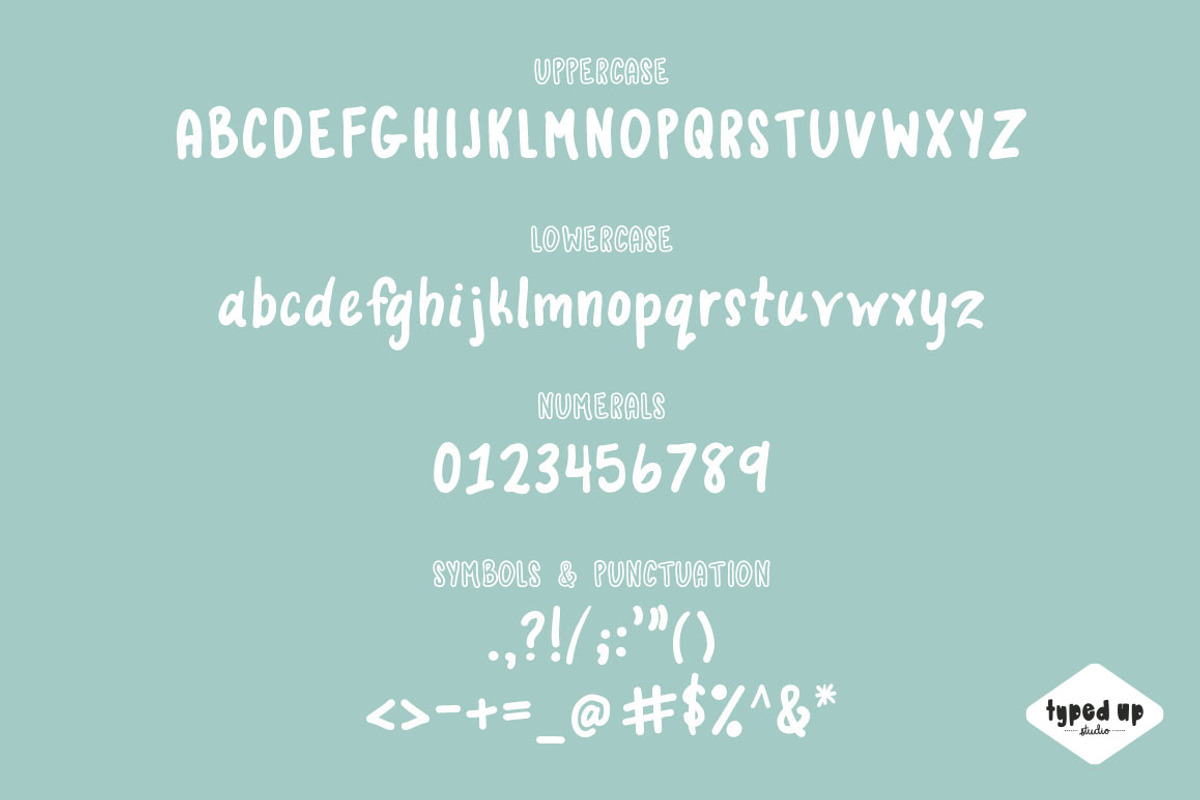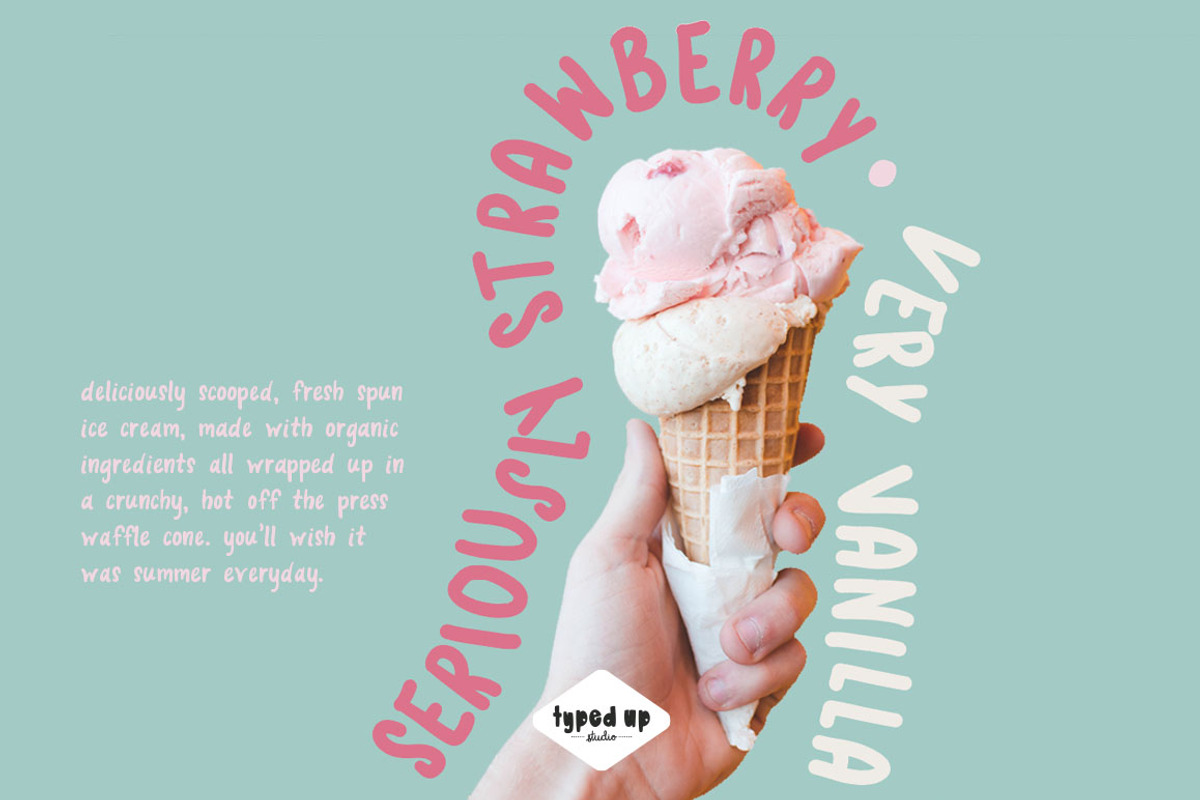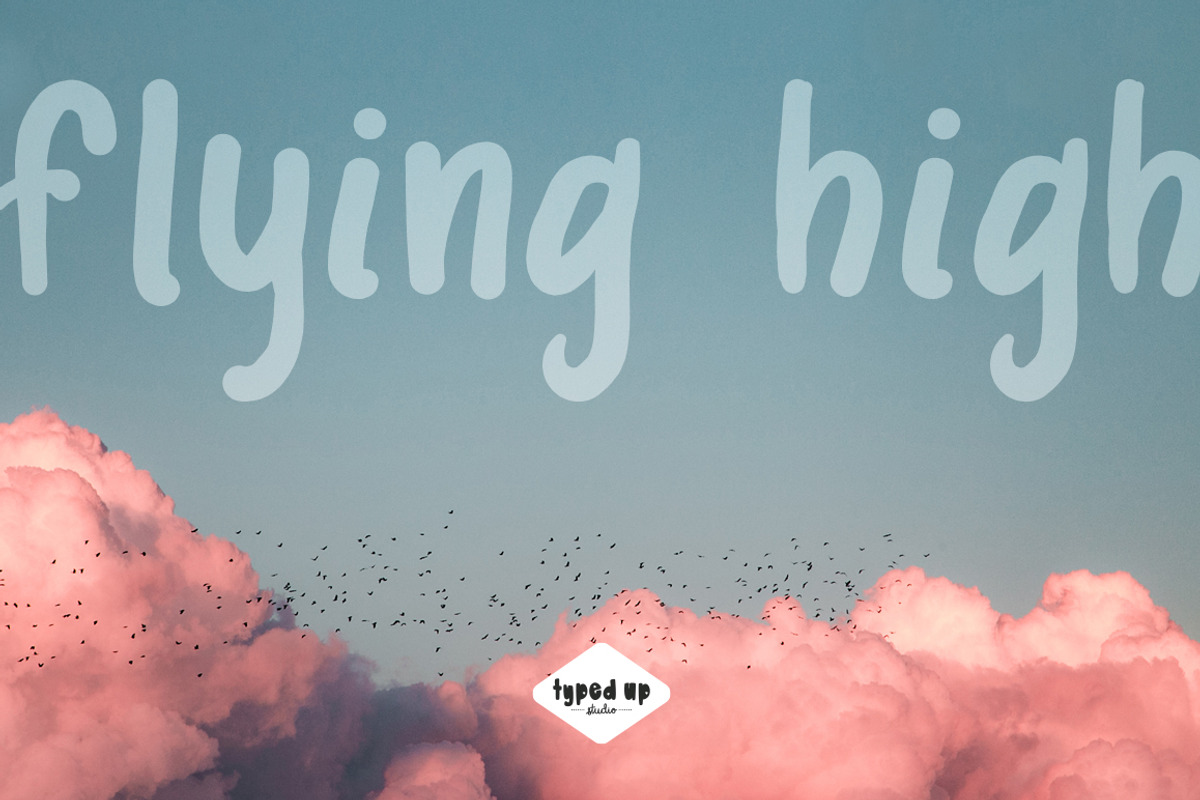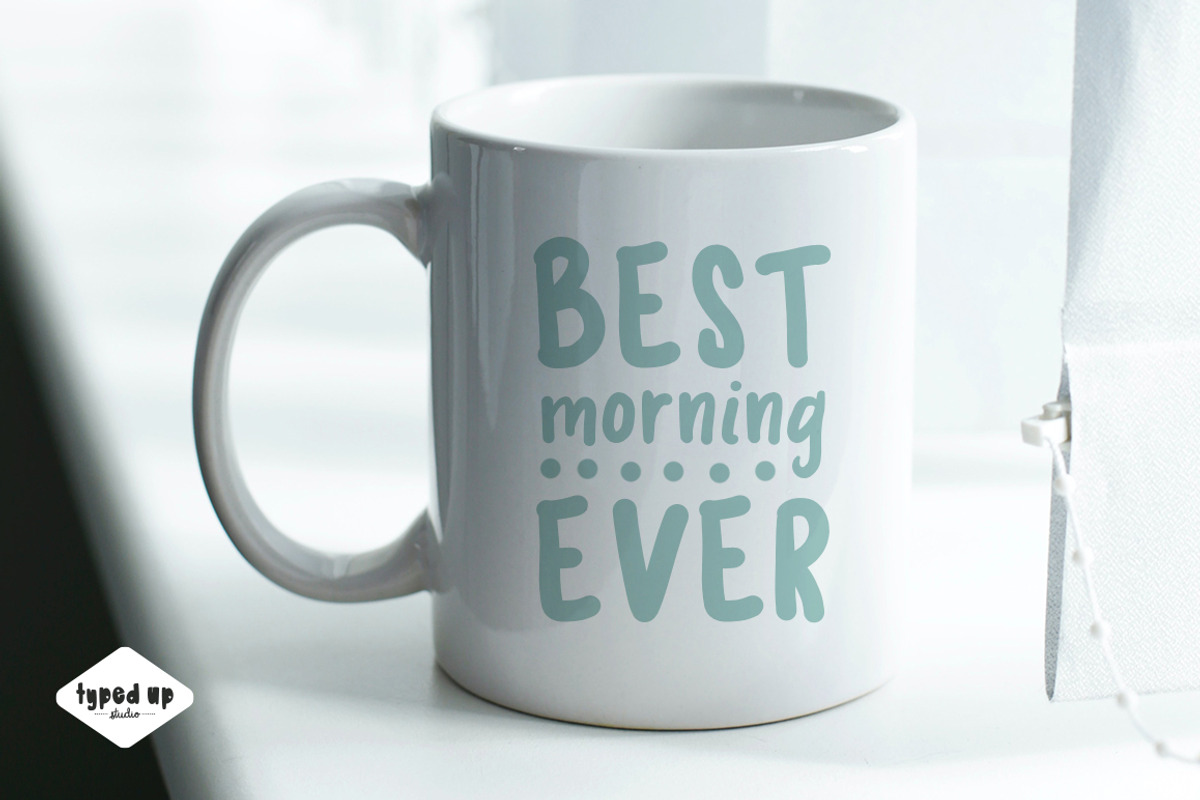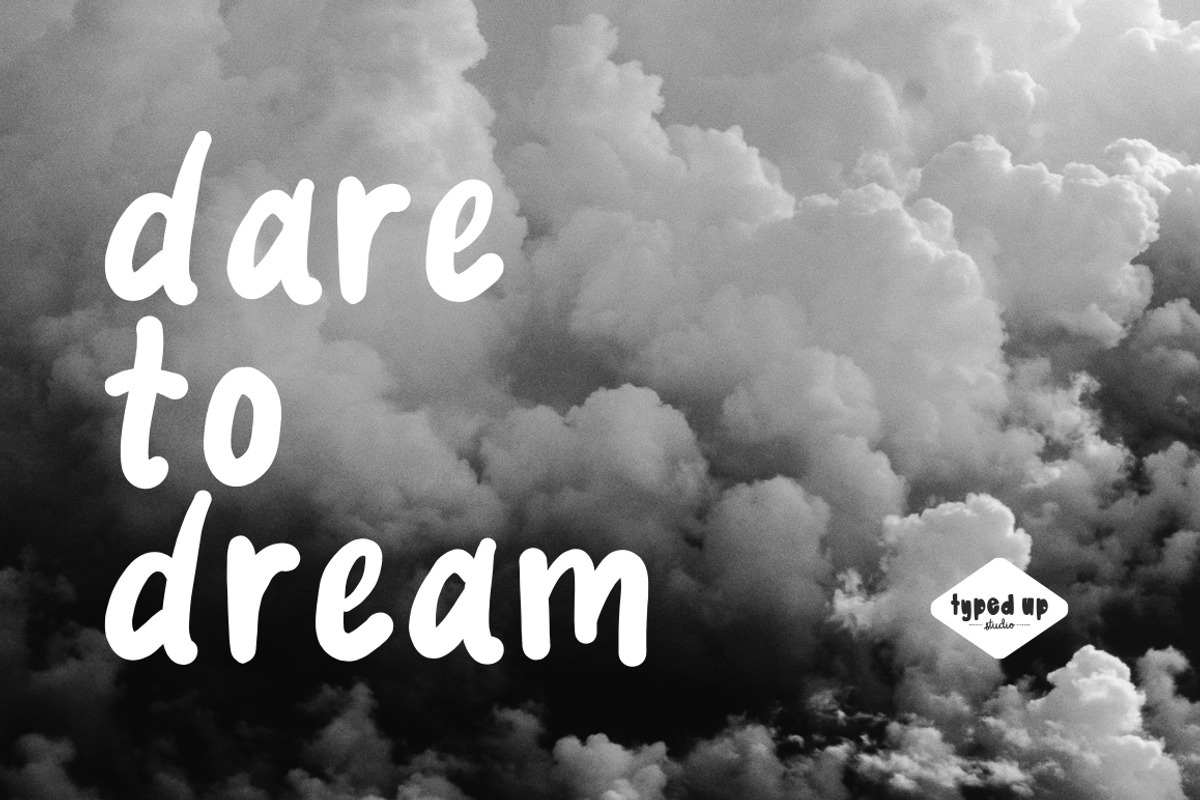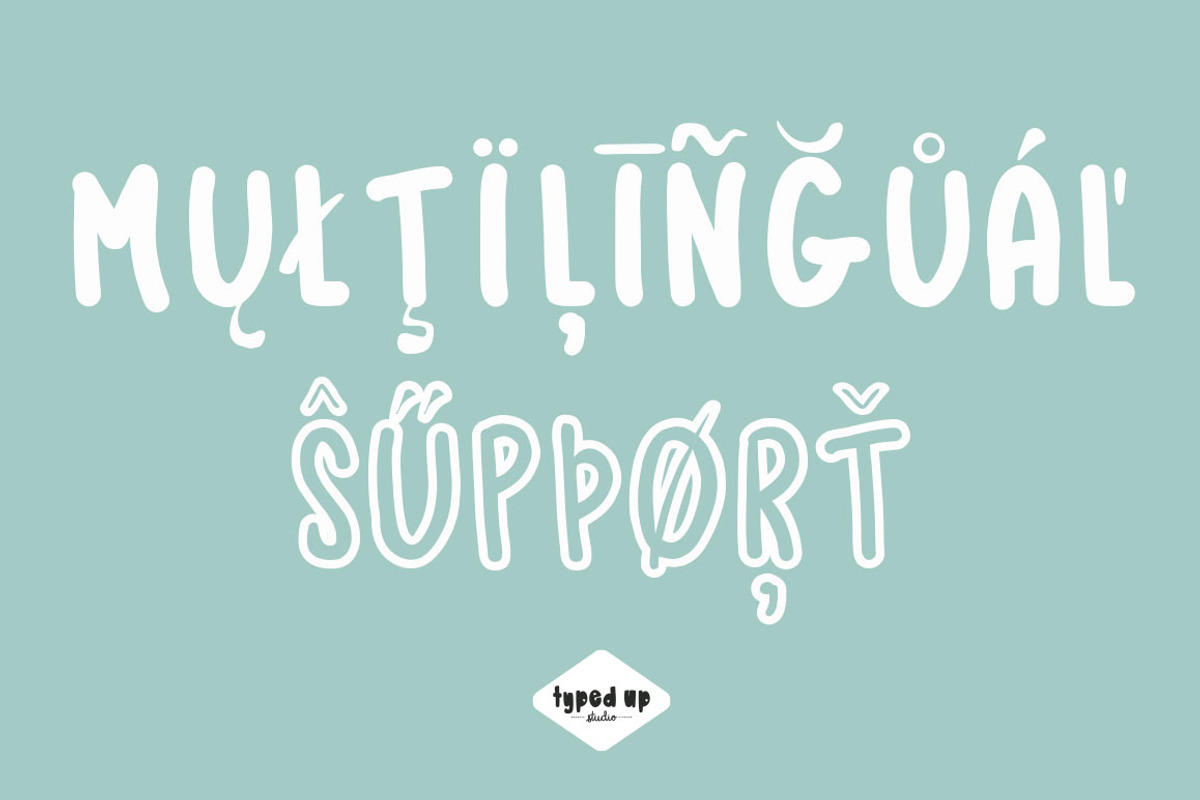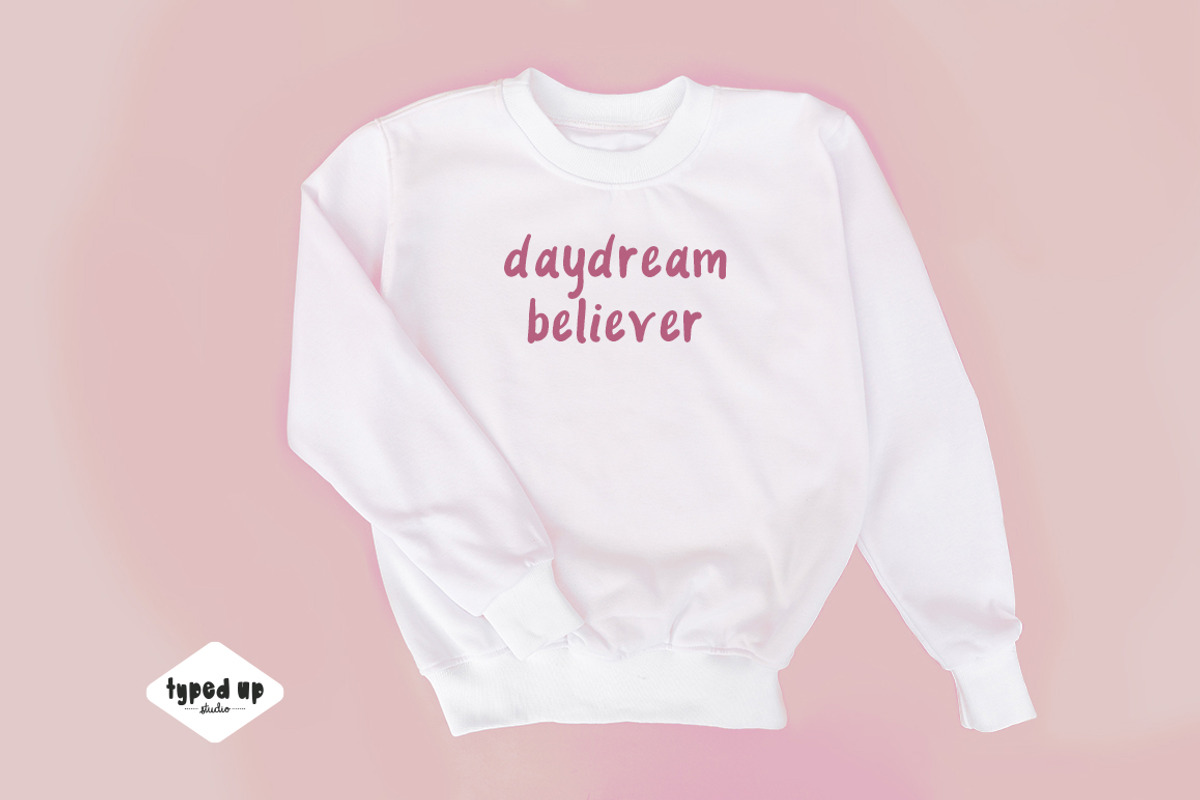
Cloud Nine Display Font
Cloud Nine is the handwritten font that can add spunk and personality without going over the top! It will be a beautiful addition to your artwork whether it stands alone or is combined with other handwritten fonts. Cloud Nine features language support for European, South American, and Oceanic languages - please test your characters in the type testing tool to make sure the characters you need are included before purchasing!